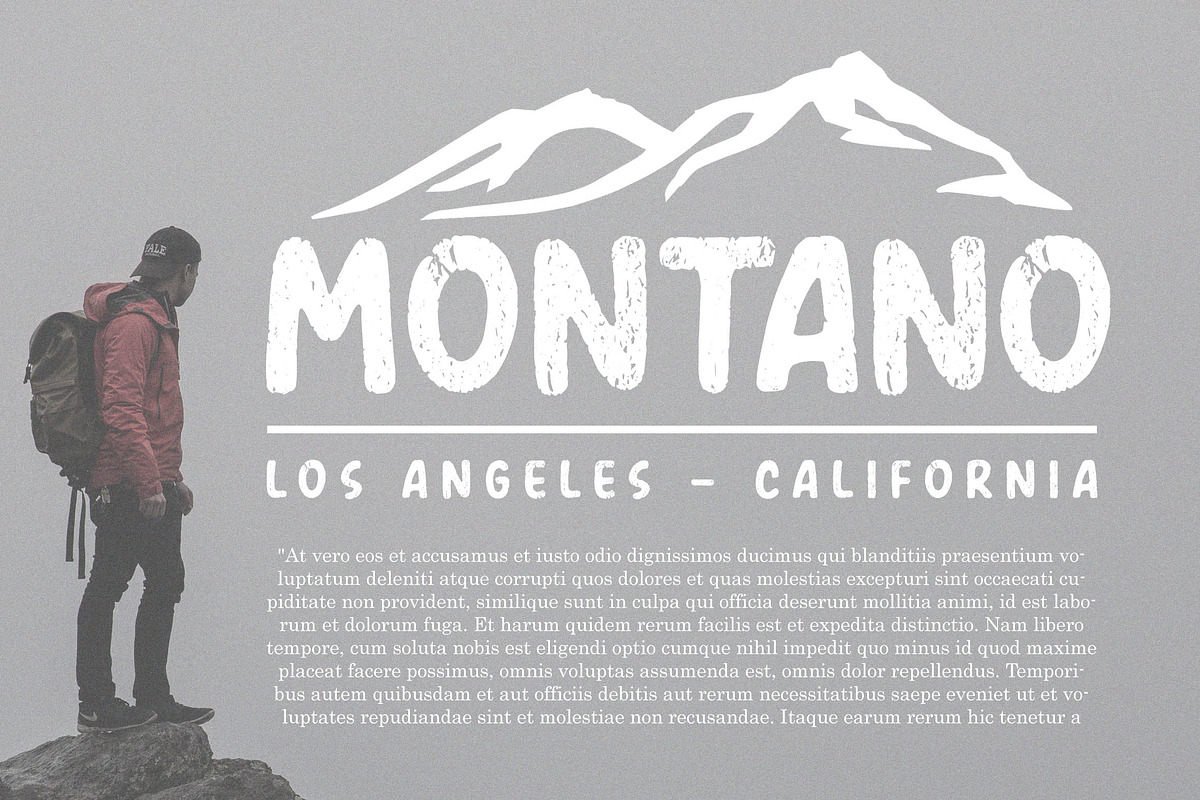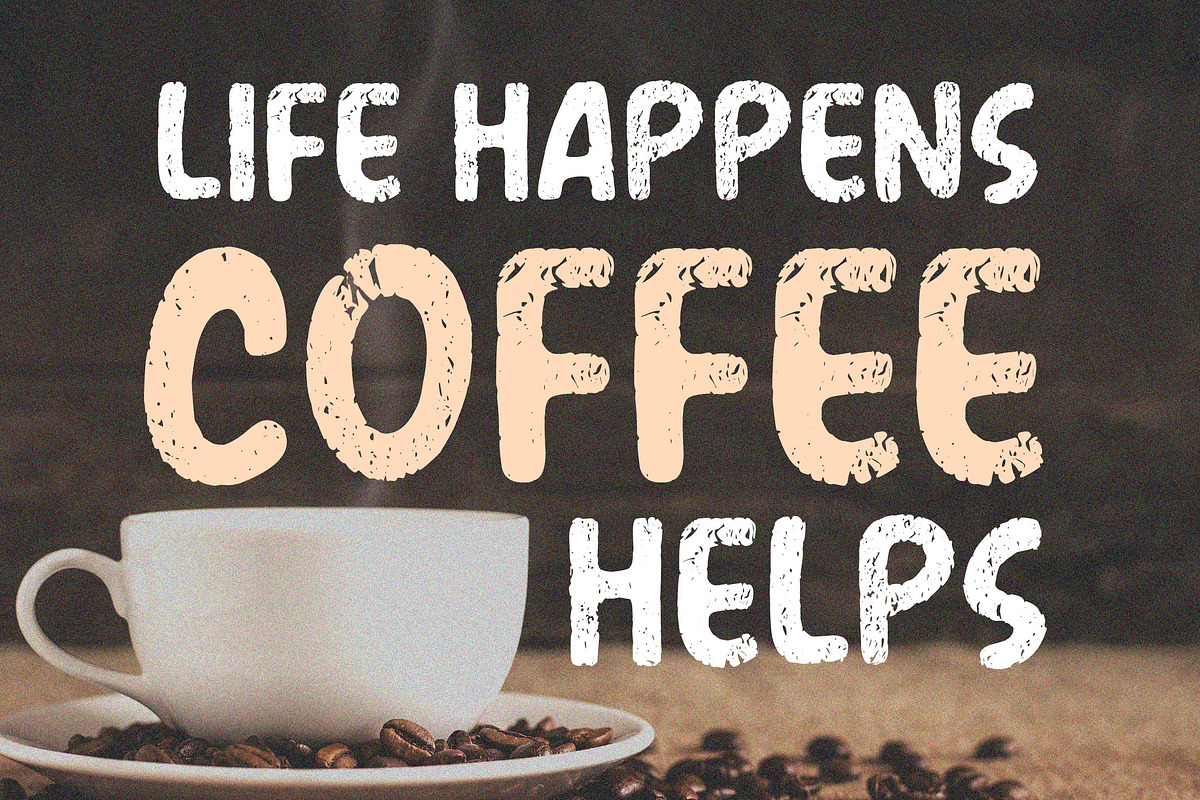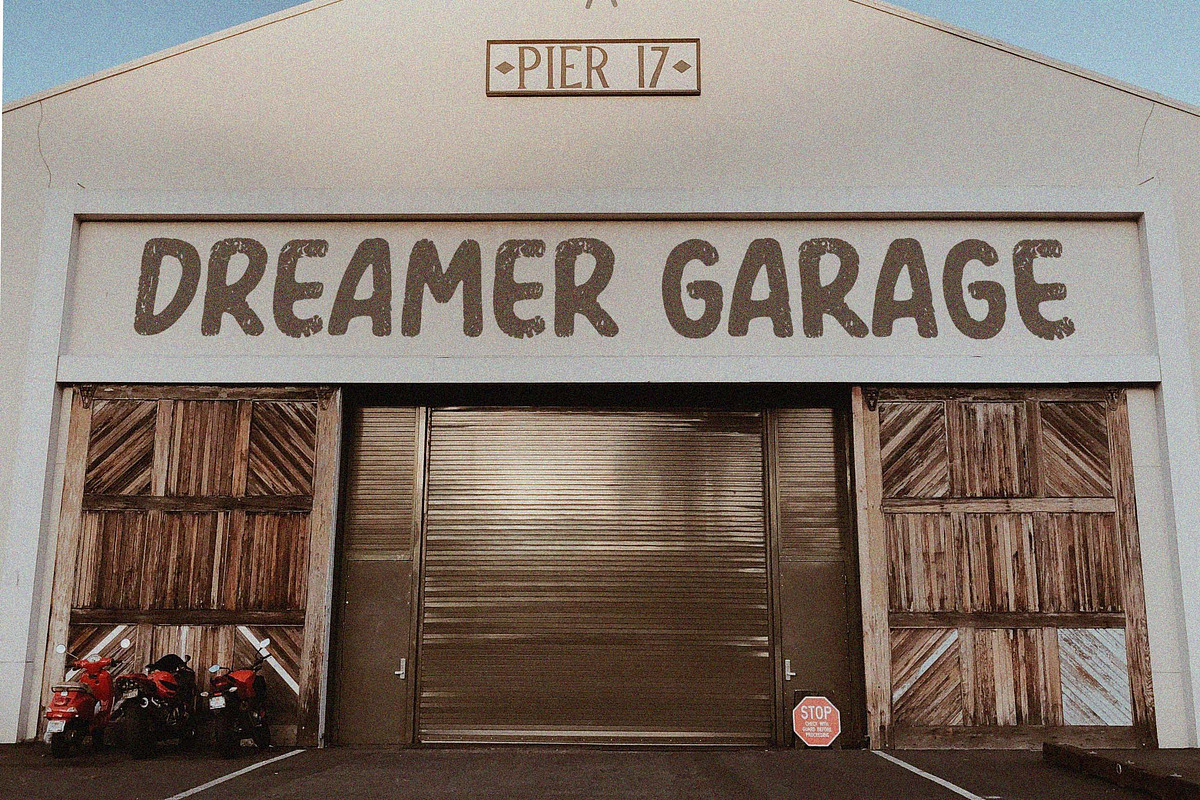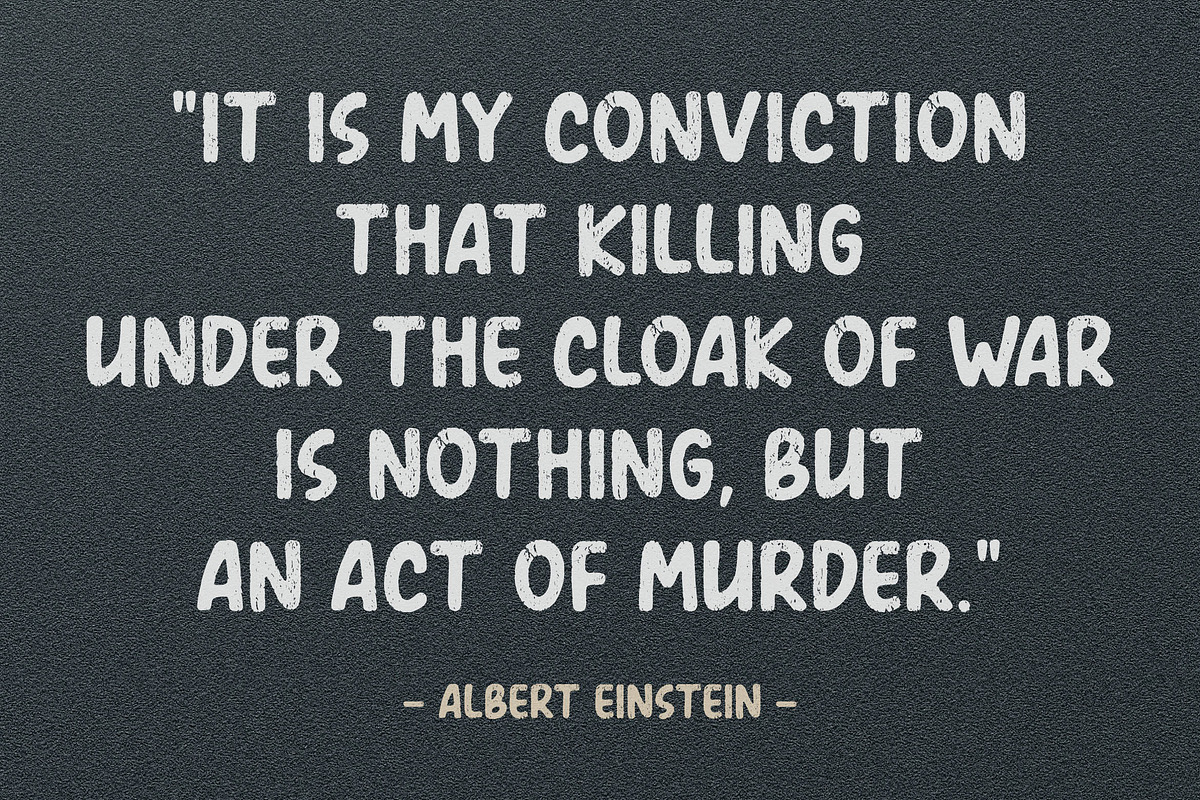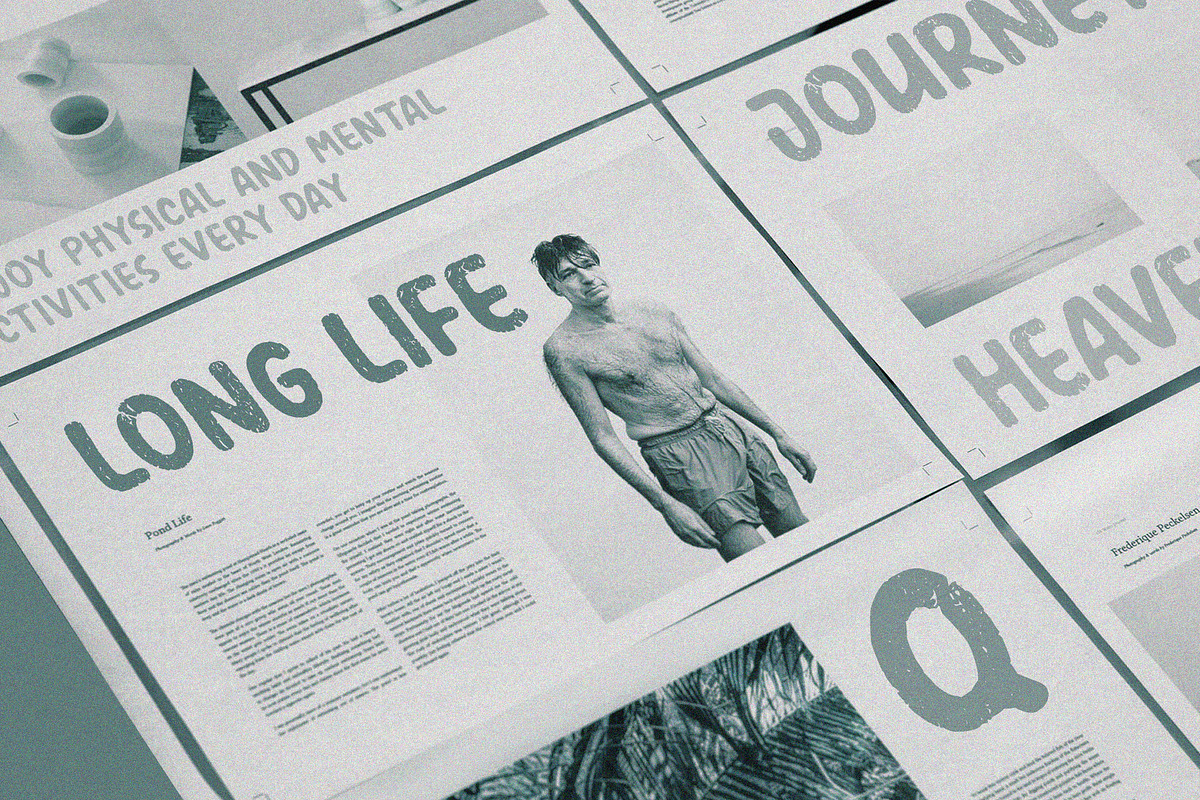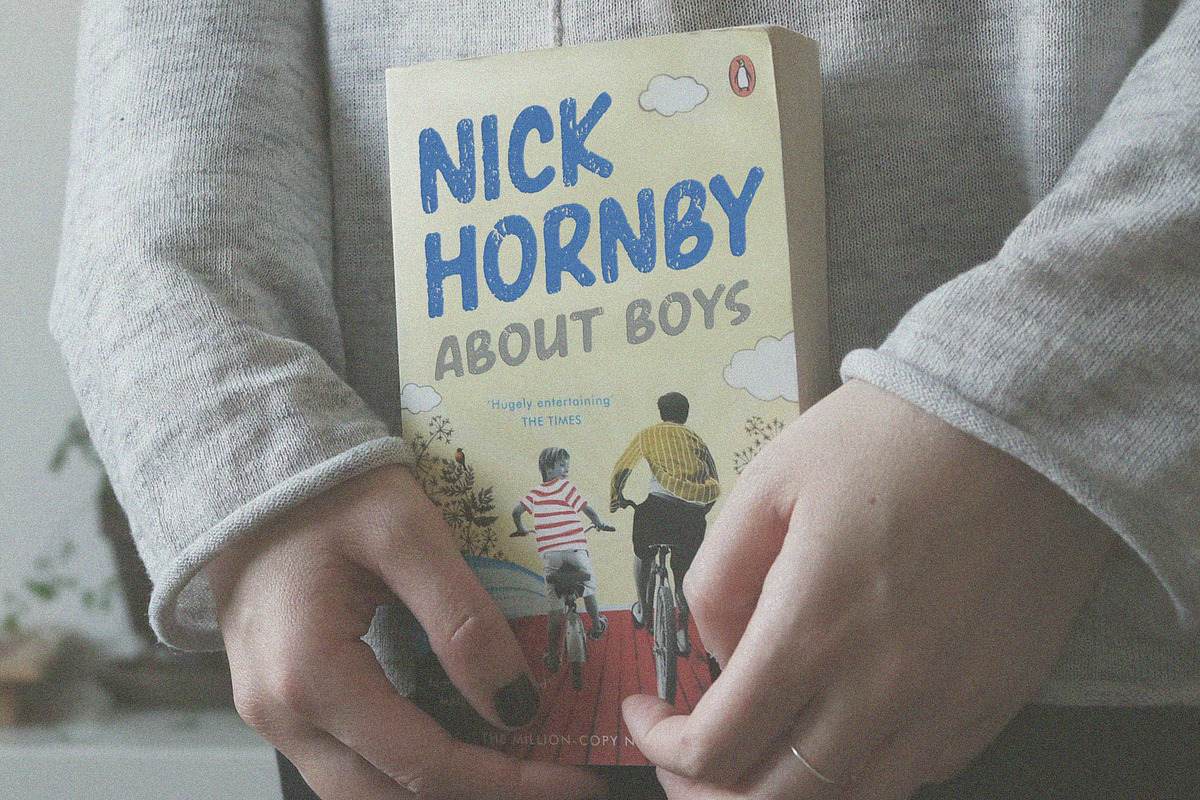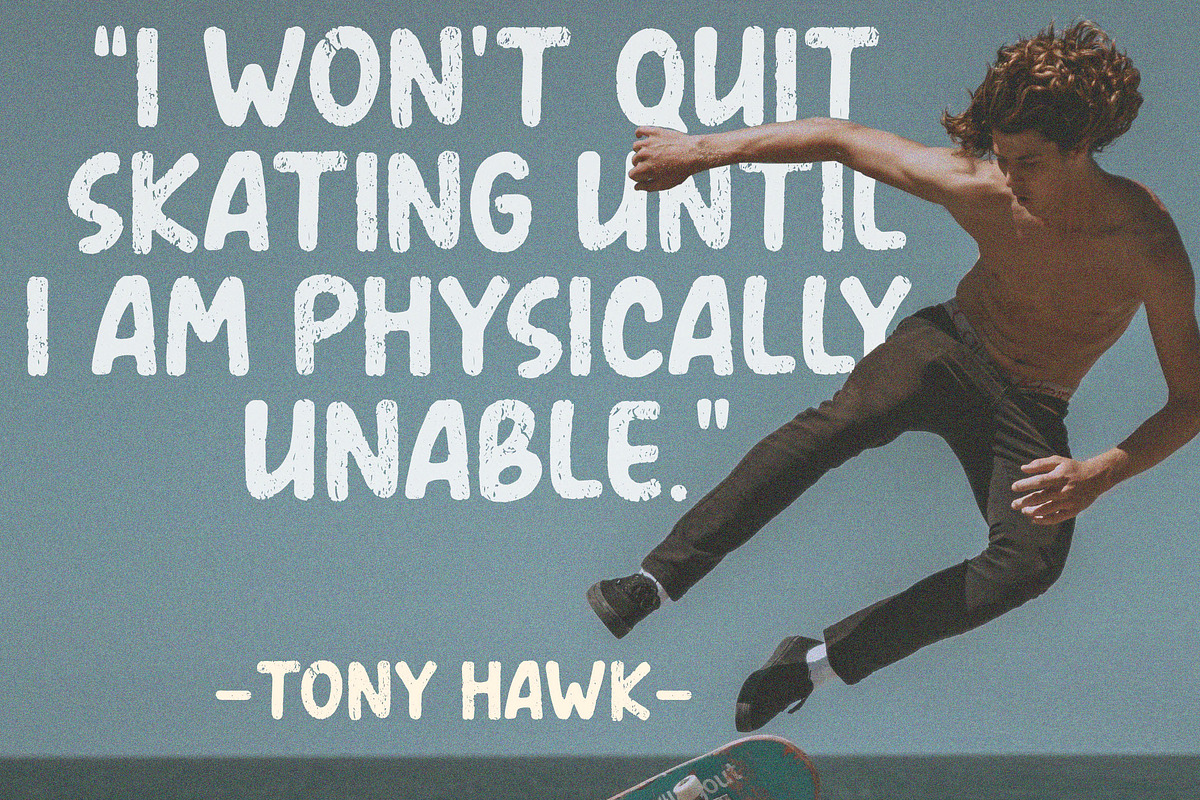
AMERIO - Rough Style Font
The Amerio is a Rough style font. was made by Subectype Studio. It features a brush made feel and look so fun. Every single letter has been natural hand written, this making the typeface unique. After that it was scanned and put together as a font. The font suits best big headlines, logos, posters, Book cover, quotes and many more!